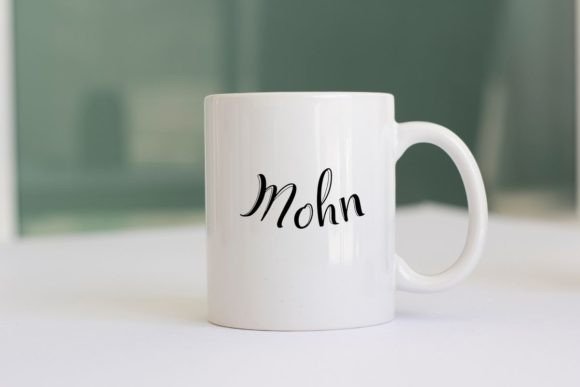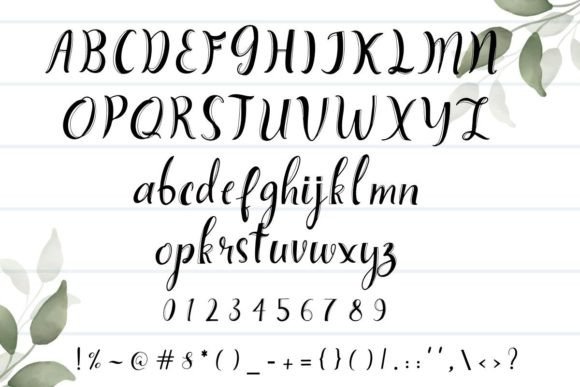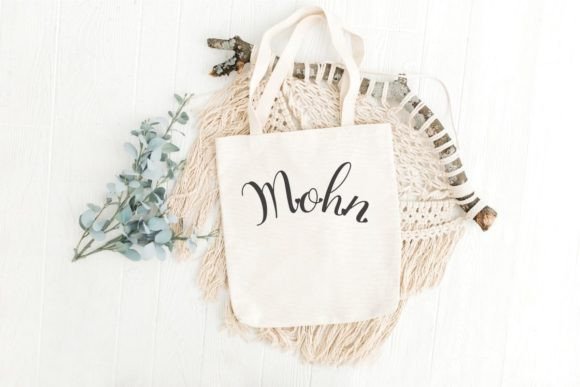
Introduction to Mohn Font
Remember that moment when you’re brainstorming ideas for a creative project and you need a font that perfectly captures the essence of your concept? For designers, this moment is all too familiar. It’s the moment when the perfect font can make or break the entire project.
That’s where the Mohn Font comes in – a stunning script font designed to add a touch of elegance to any project. With its beautiful, flowing letterforms, this font exudes a sense of sophistication and refinement that’s perfect for branding, invitations, and editorial design. Whether you’re working on a high-quality design resource or a personal creative project, the Mohn Font is an excellent choice that’s sure to elevate your work.
Key Features of Mohn Font
- Designed with precision and attention to detail, making it perfect for print and digital applications
Honest Review: Mohn Font
I recently had the chance to work with the Mohn Font, and I must say it’s a solid addition to any designer’s toolkit. This free download is a high-quality design resource that can elevate your creative project to the next level.
- What works well: ✨ The Mohn Font’s clean and modern design makes it perfect for a wide range of projects, from logos to typography-heavy designs. The transparent background also gives you the flexibility to place it on any background without worrying about awkward white spaces.
- What works well: ✨ The font’s high quality is evident even at larger font sizes, making it ideal for titles and headings.
However, there are a few limitations to consider: ⚠️ The font’s character set is limited, so you might not find the specific symbol or character you need. Additionally, the font’s weight can be a bit too light for some projects, so be sure to check the spacing and legibility before finalizing your design.
Overall, I’m impressed with the Mohn Font’s performance and versatility. While it may not be perfect, it’s a great resource to have in your design arsenal. With a little creativity and planning, you can achieve stunning results with this free download.
Designing with Mohn Font
Mohn Font is a high-quality design resource that can be used to enhance your creative project. With its transparent background, this font is perfect for adding a touch of elegance to your designs.
Tips for Getting the Most Out of Mohn Font
To get the most out of Mohn Font, use it in combination with other design elements, such as images and graphics, to create a visually appealing design. You can also experiment with different font sizes, colors, and styles to find the perfect look for your creative project.
Mohn Font is commonly used in creative projects such as logo design, brochure design, and website design. It is also used in marketing materials, such as business cards and flyers, to add a touch of elegance and sophistication.
Q: Can I use the Mohn Font for web design, and will it work with a transparent background?
Yes, the Mohn Font is suitable for web design and can be used with a transparent background. The font’s transparent background feature allows it to blend seamlessly with your design, making it an excellent choice for creative projects that require a high level of customization.